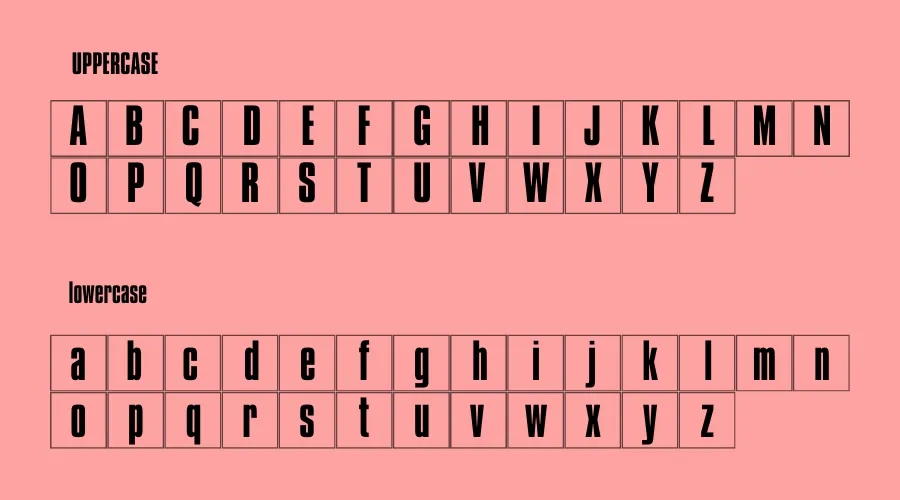
About Compacta Font
In this article, we will present you with a very elegant and outstanding typeface known as the name of Compacta Font. This stunning typeface was developed by Fred Lambert for Letraset in 1963. It is under the category of sans serif texture family with a unique and clean texture look impression for the visitors. You may easily download it free from here for all your fun tasks.